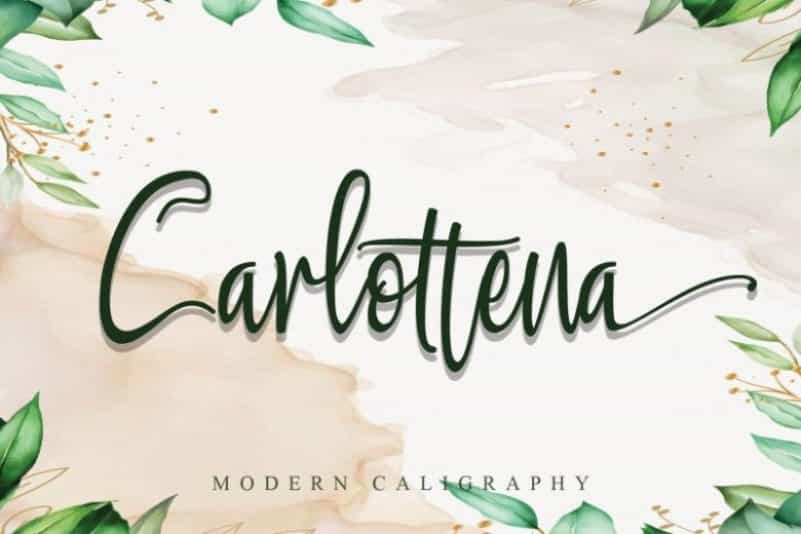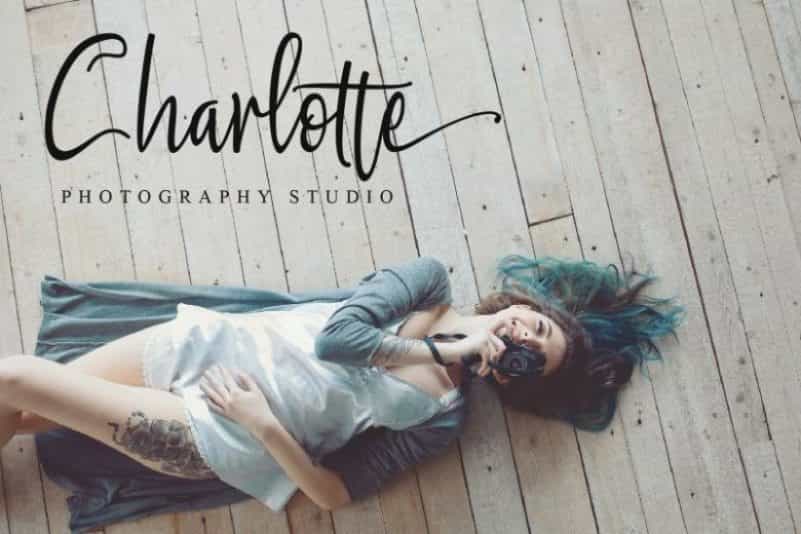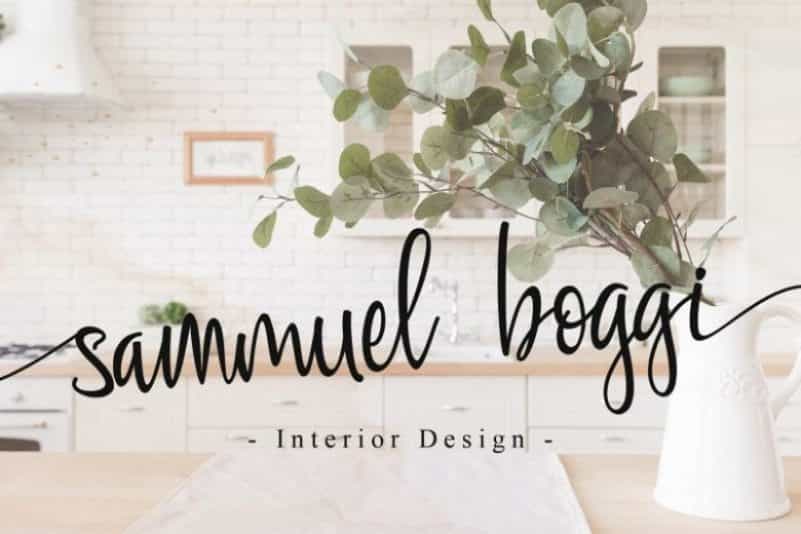
Carlottena Font, a fun script typeface. Perfect for a headline, instagram post and stories, logo design, magazine cover or book illustration. Also suitable to be used as a greeting card / wedding invitation , packaging material , fashion accessory and make up products.